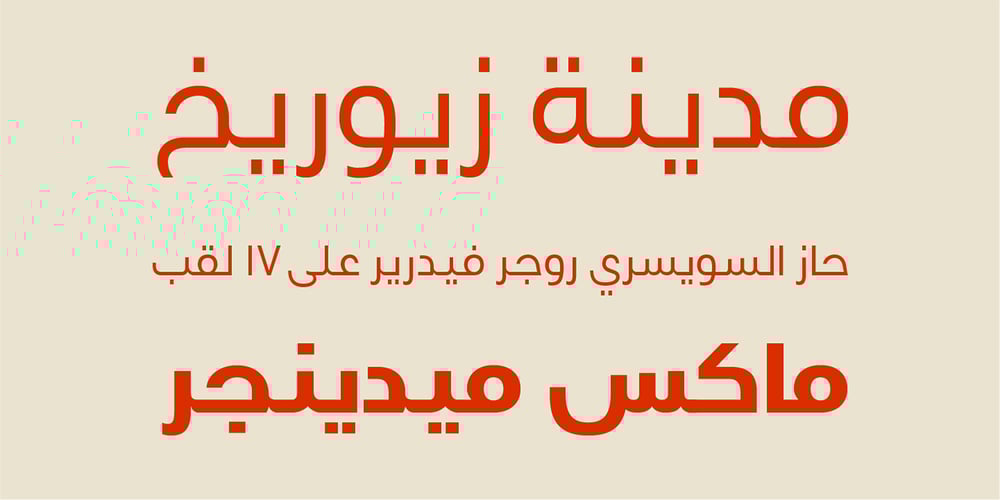
Swissra
Swissra font
Swissra Font Family was designed by Ali Almasri and published by Abjad. Swissra contains 8 styles and family package options. Swissra is an Arabic typeface that was inspired from Swiss graphic design. The motivation behind the typeface was to create a neutral and carefully crafted Arabic font family that can be used on many different applications. Swissra also aspires to tribute the experience of Swiss graphic design and pass it on to the Arabic graphic design scene. Swissra features sharply cut terminals, which are either horizontal or vertical. It also features closed apretures and a high x-height. It comes with eight weights, that range from thin to black.